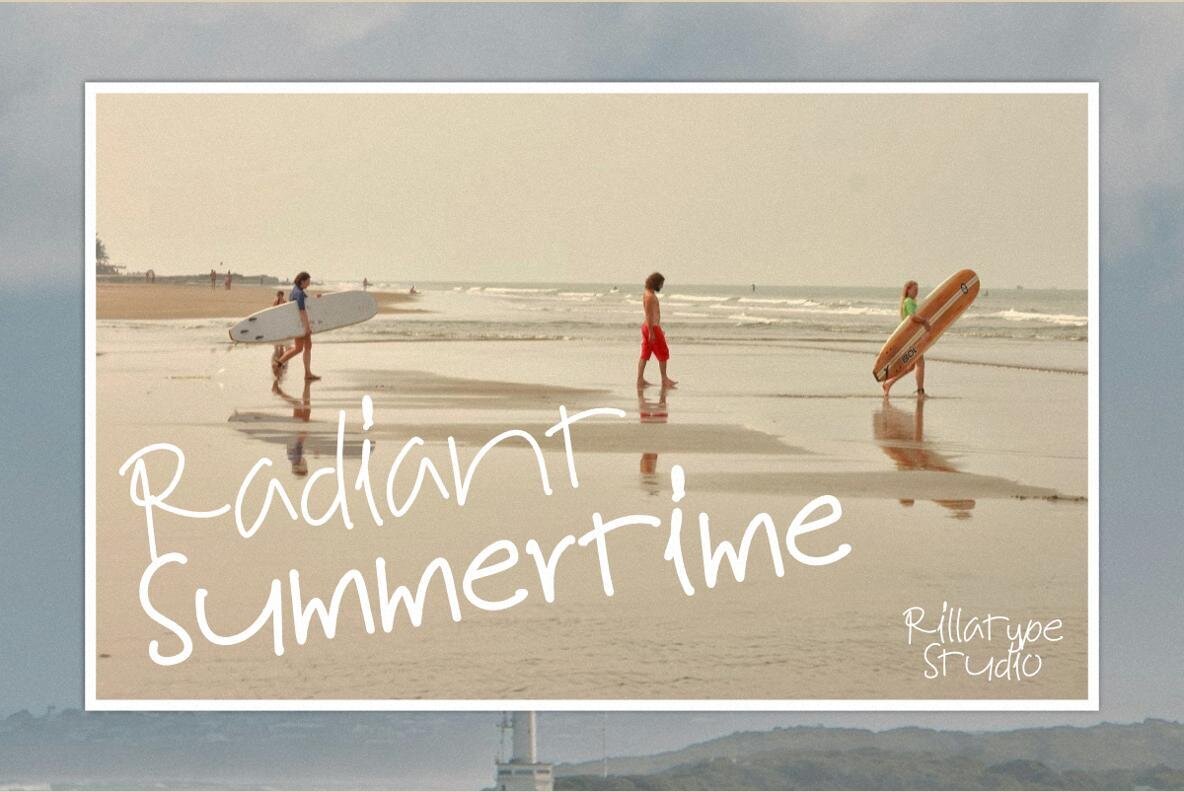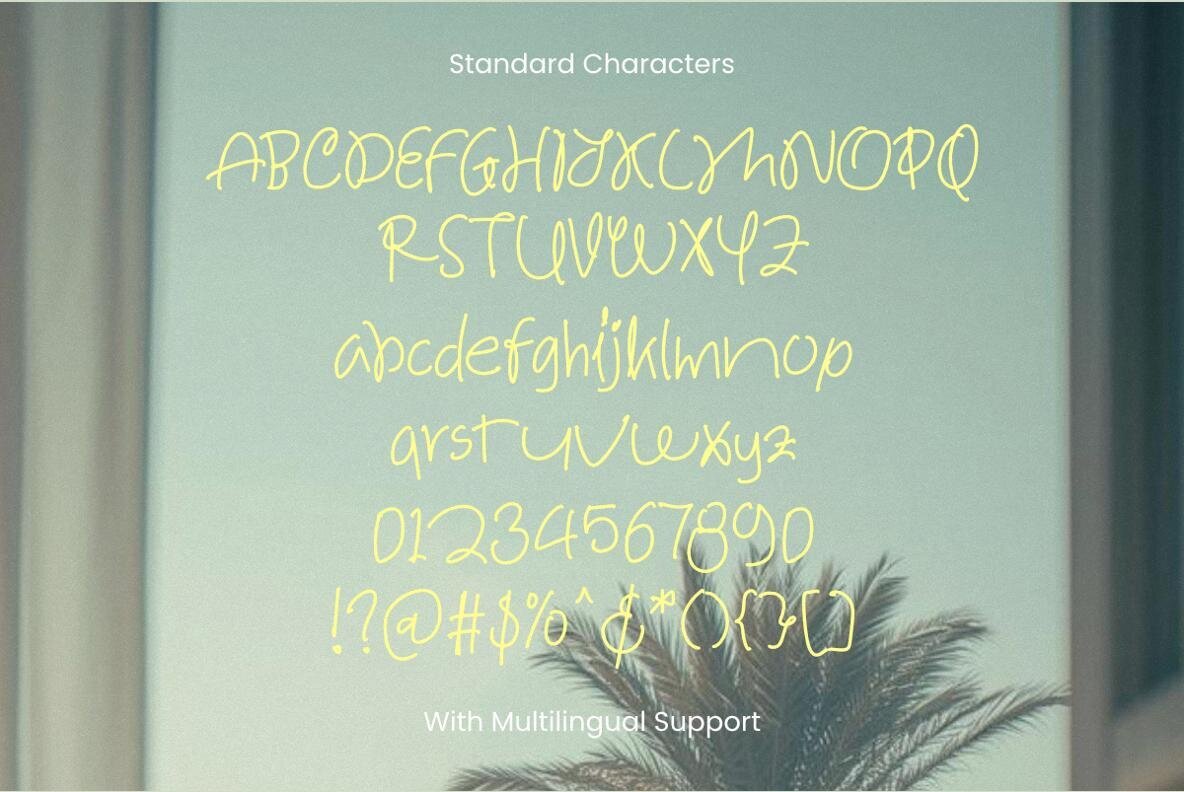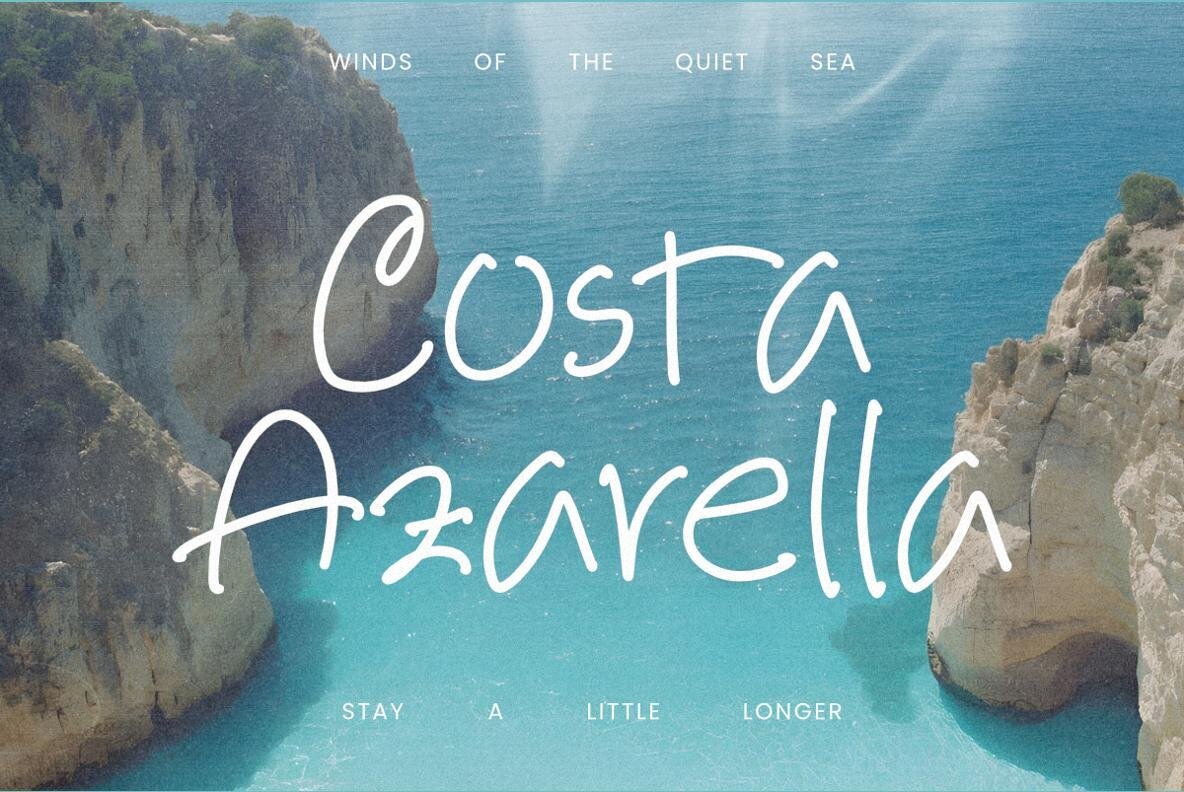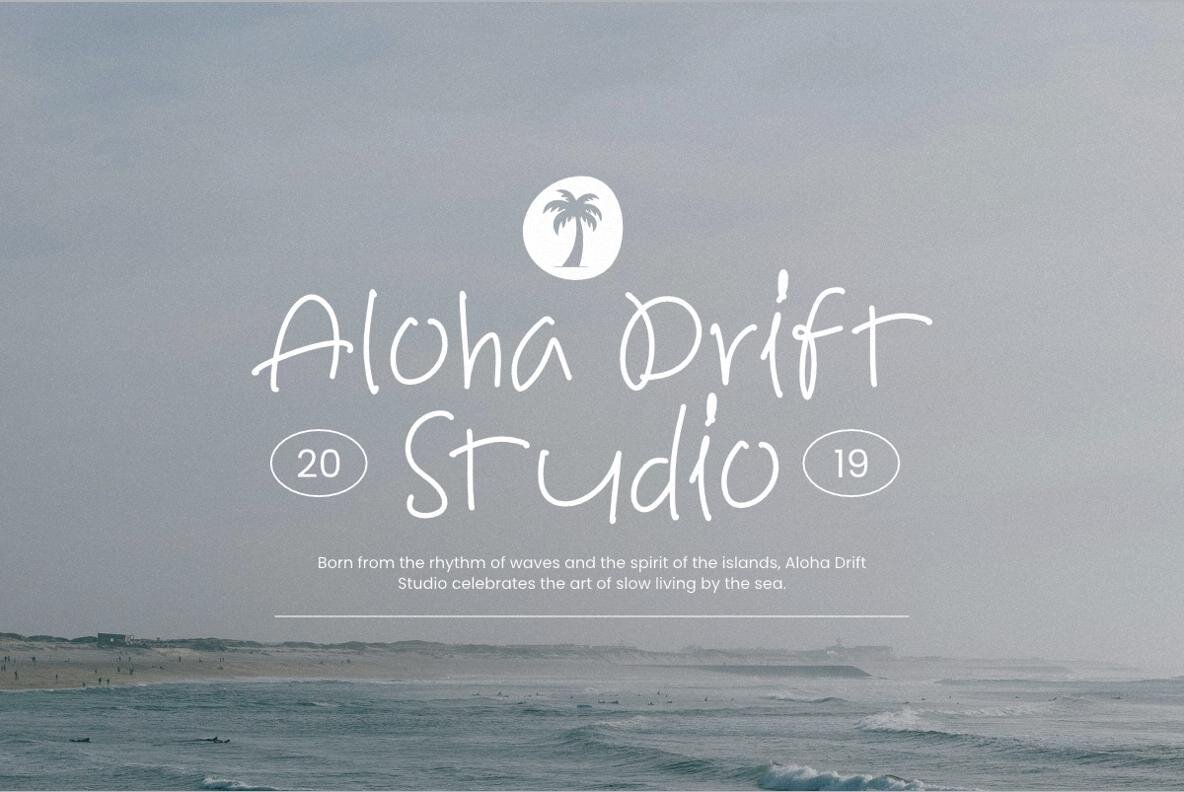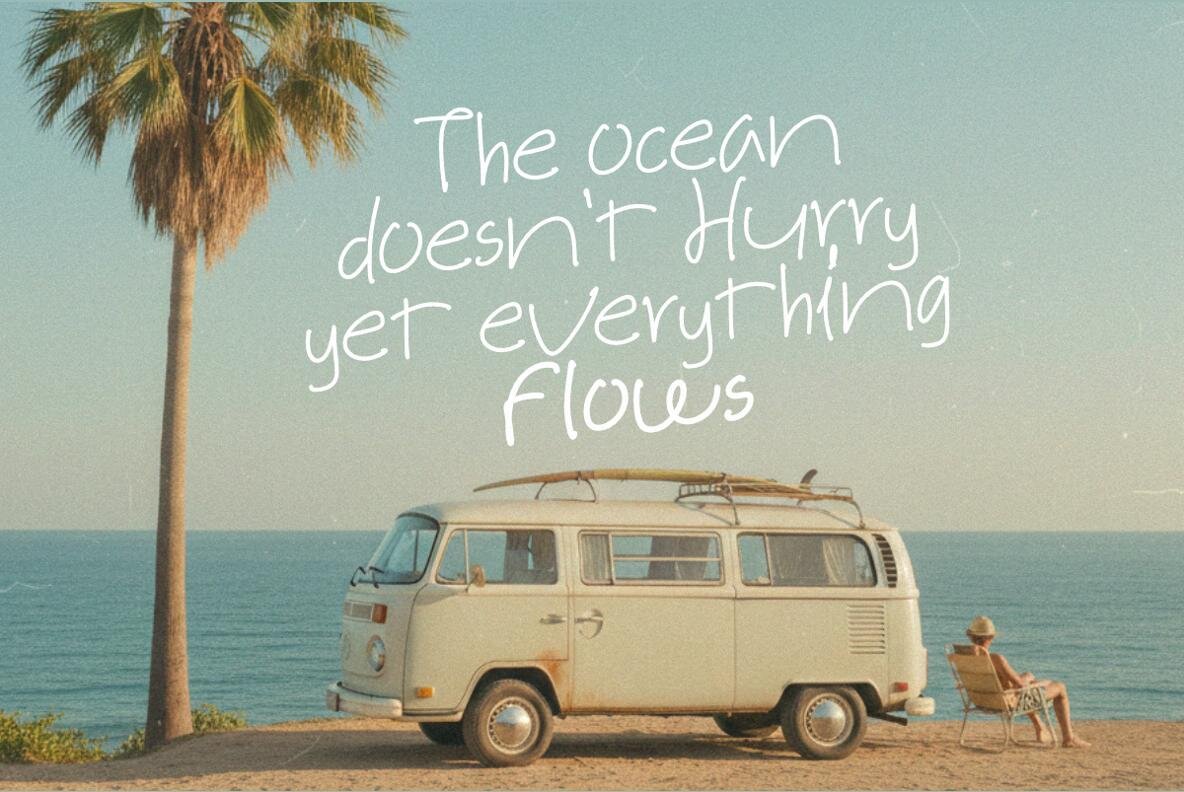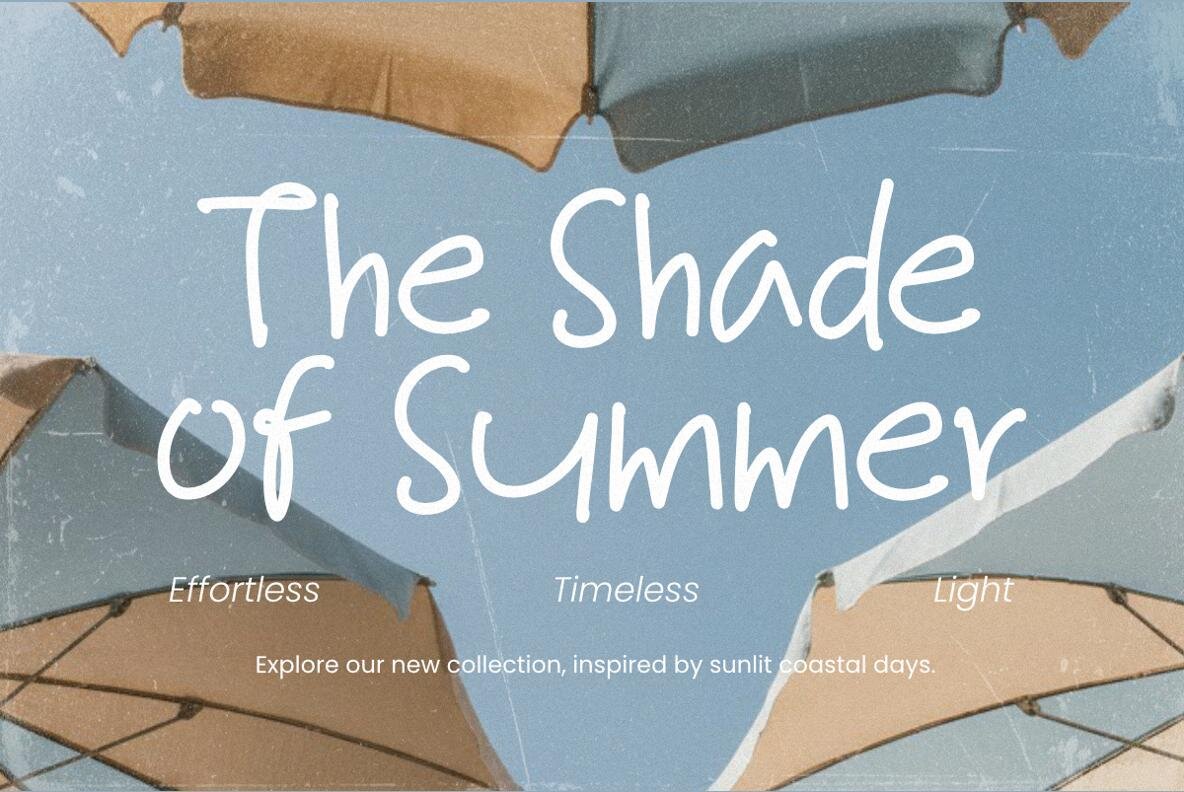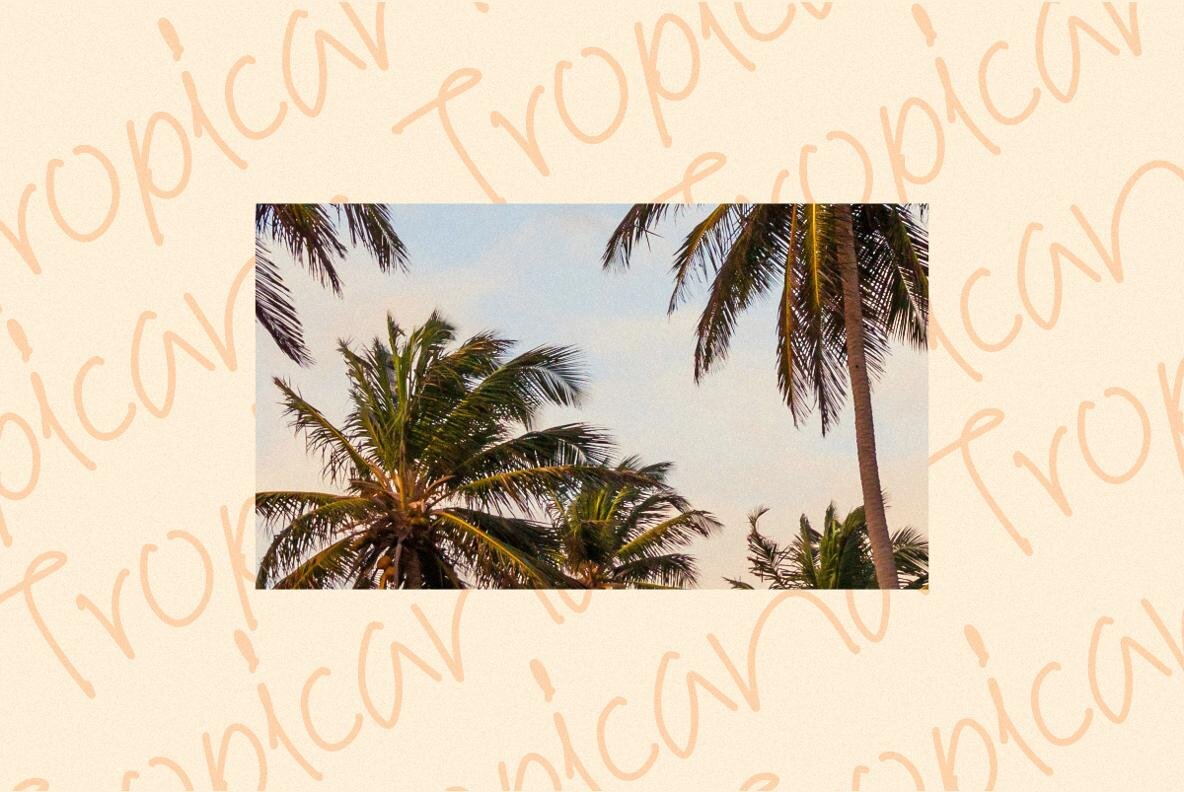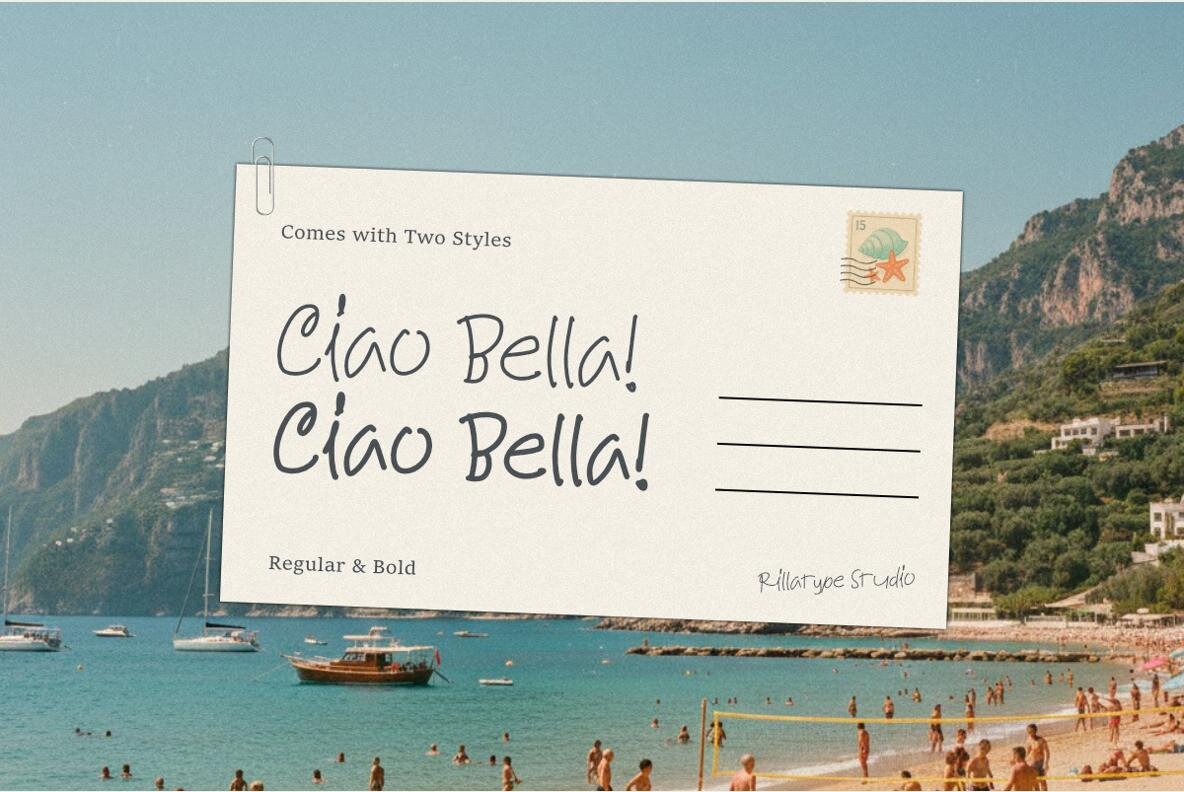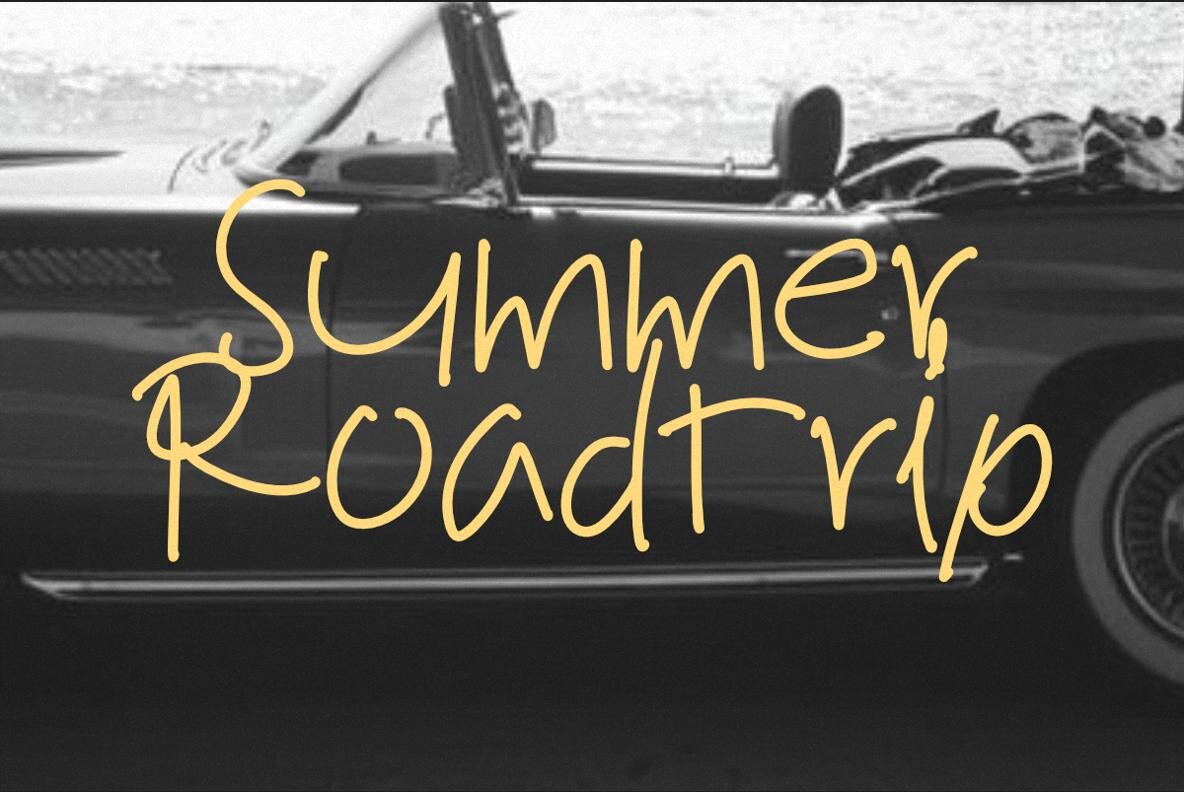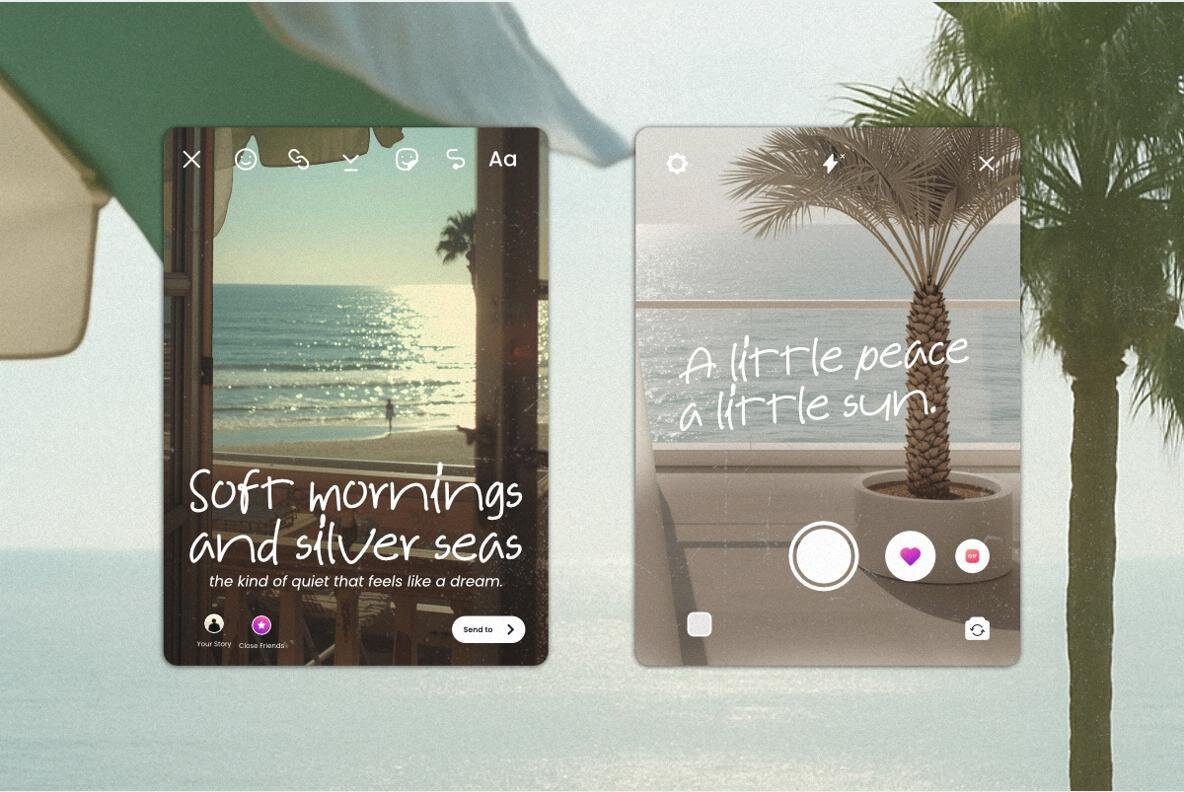
Radiant Summertime Font
Radiant Summertime brings the relaxed energy of sunlit days into your design work. Its smooth, flowing lines and organic shapes give each word a sense of ease, echoing the spontaneity of hand-drawn notes in a summer journal. The font’s casual handwritten style instantly recalls beachside moments and the simple joy of summer gatherings, making it a fitting choice for projects requiring an informal yet refined touch. Incorporate it seamlessly into travel journals, posters, or lifestyle branding to evoke a feeling of nostalgia and authentic warmth. Available in both Regular and Bold styles, Radiant Summertime adapts to a range of applications—from understated social media captions to prominent display headlines. Its versatility offers flexibility for light, minimal use or high-contrast designs that require a stronger visual presence. The consistent compatibility across platforms ensures that this typeface integrates smoothly into any workflow, whether the project calls for digital assets or print-based outcomes.Radiant Summertime: Handwritten Font With Playful Warmth